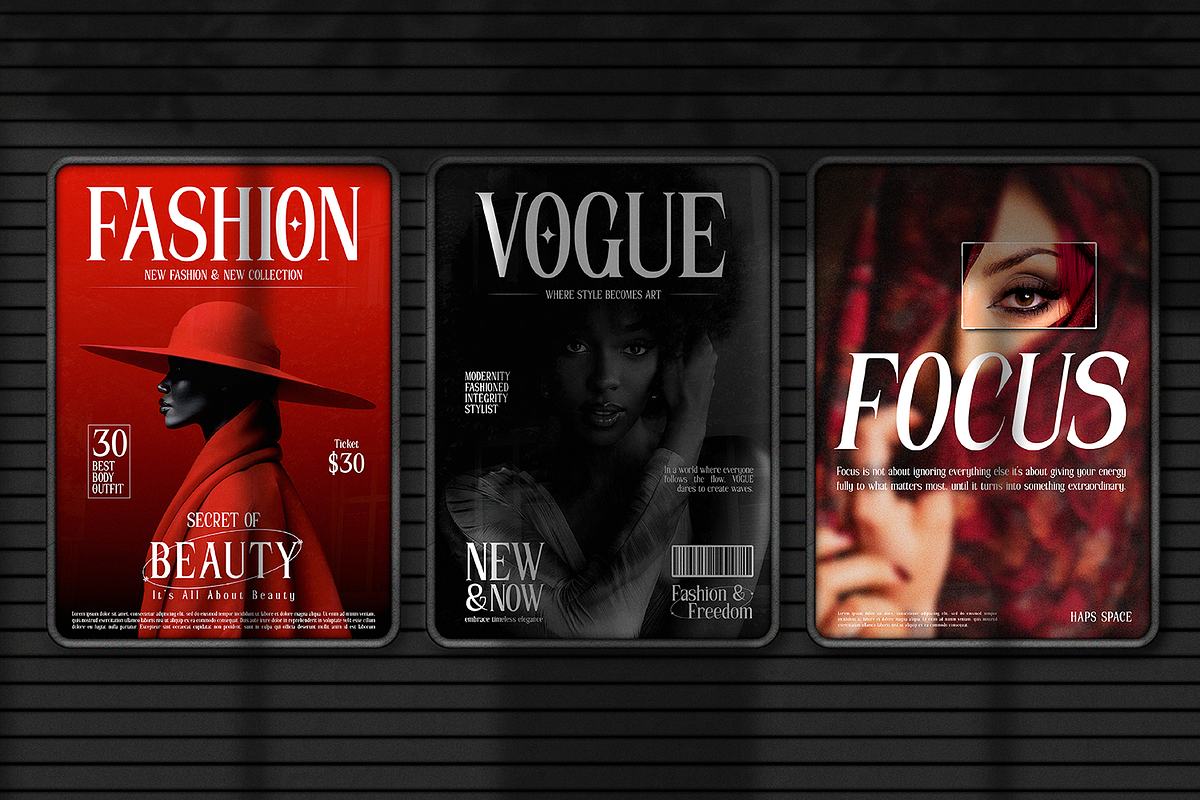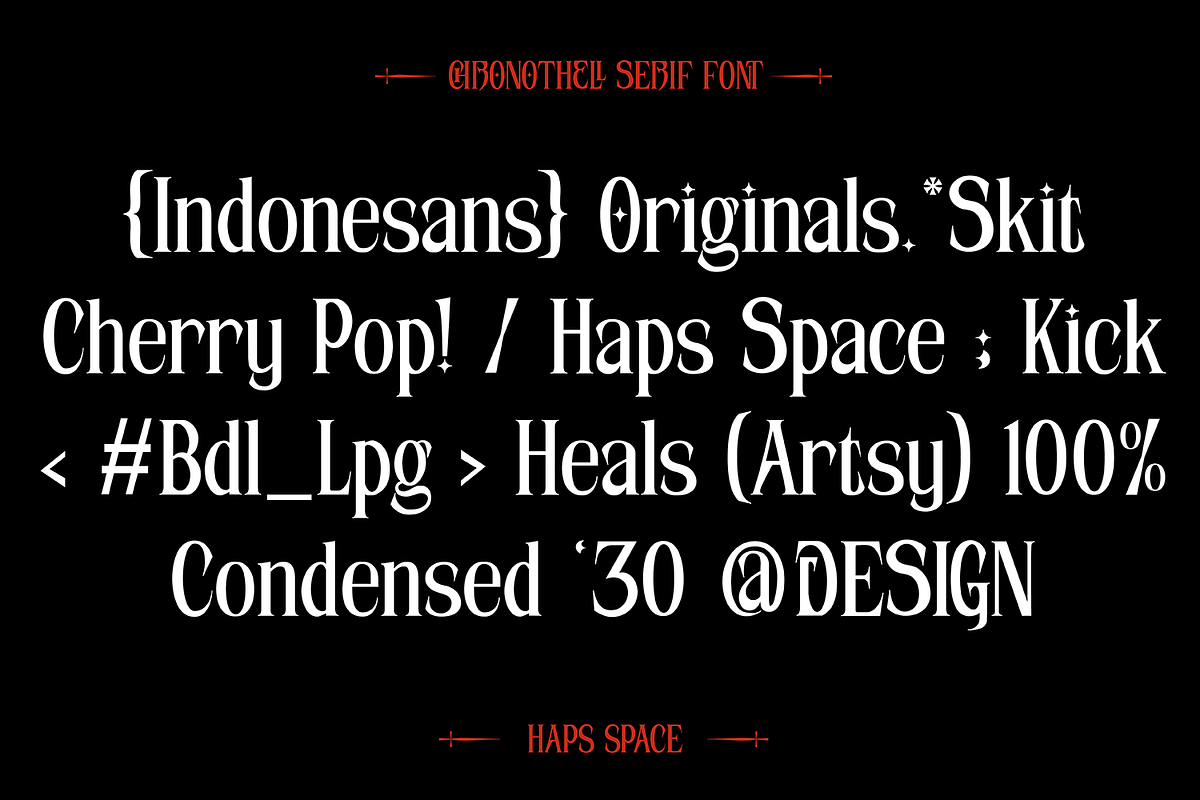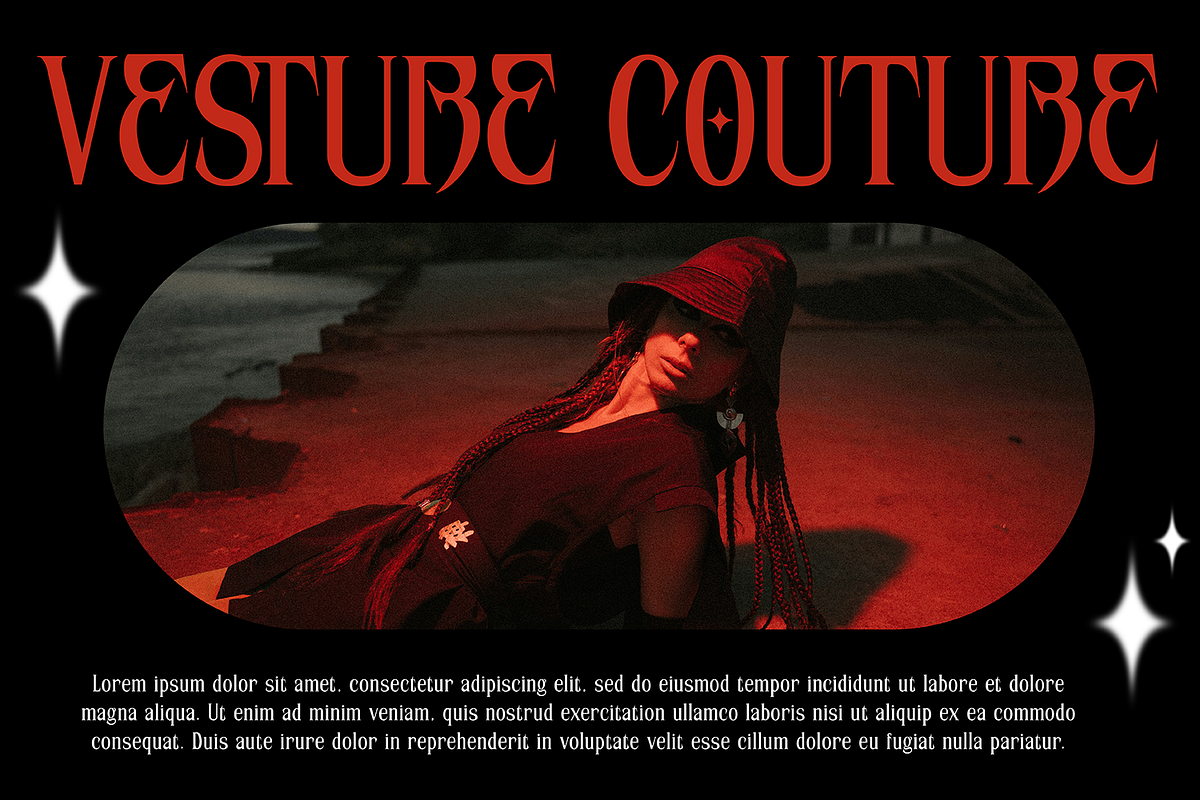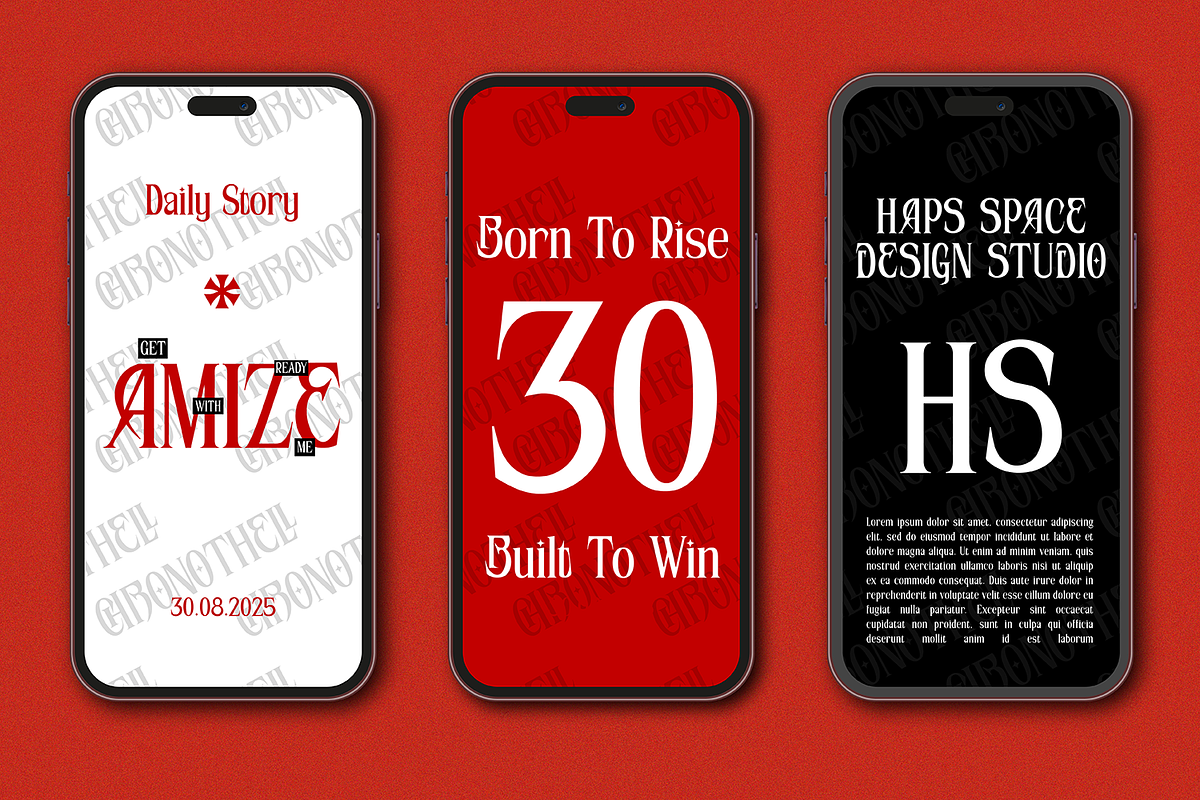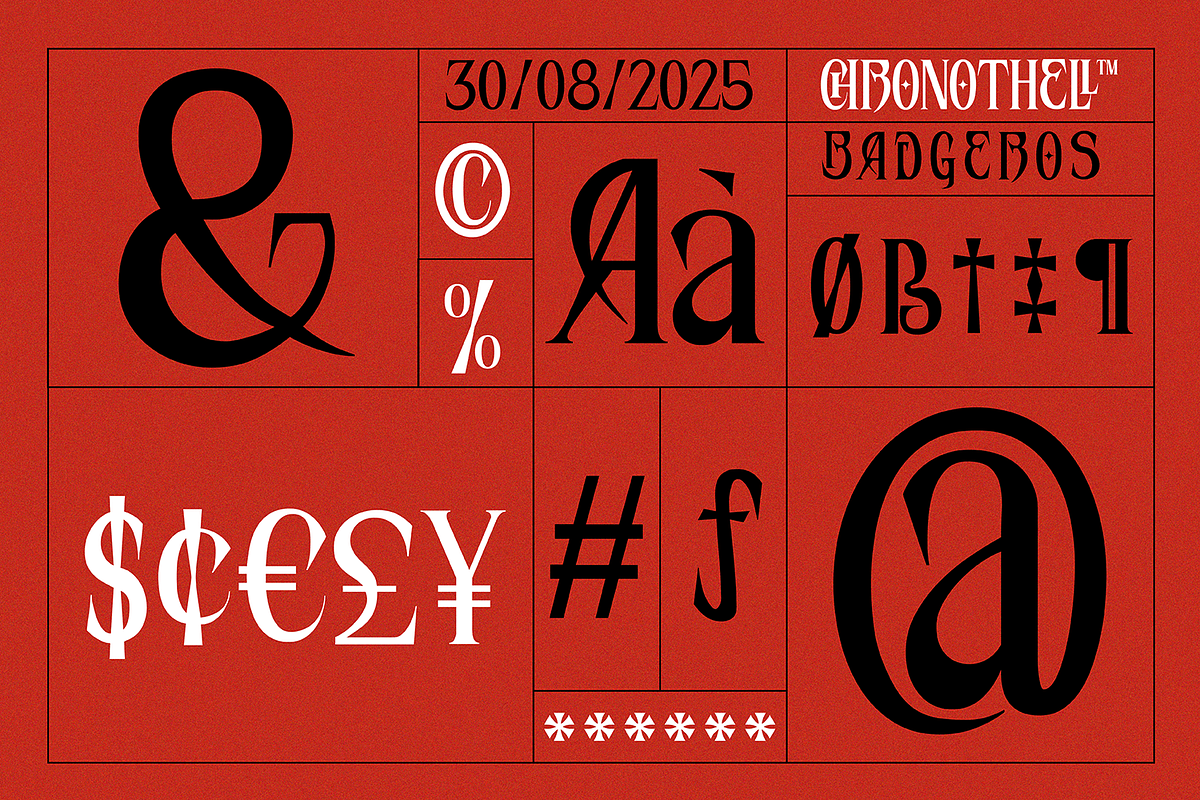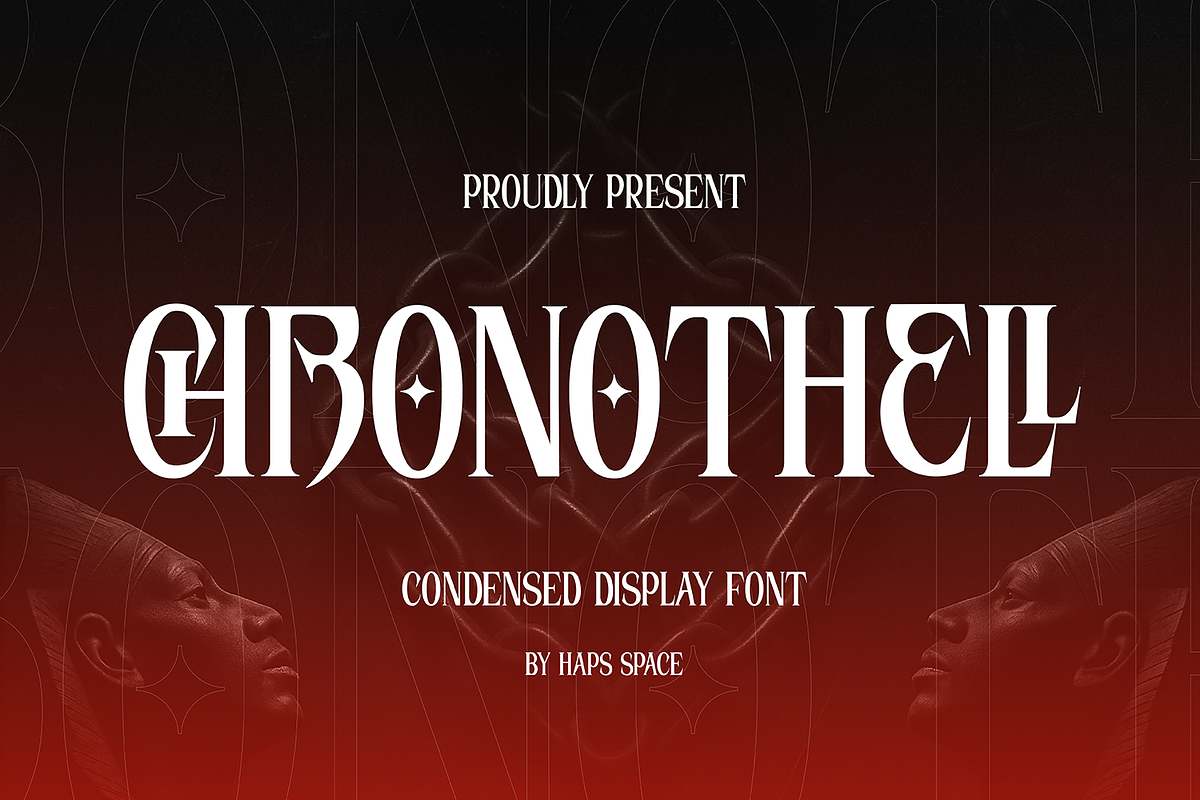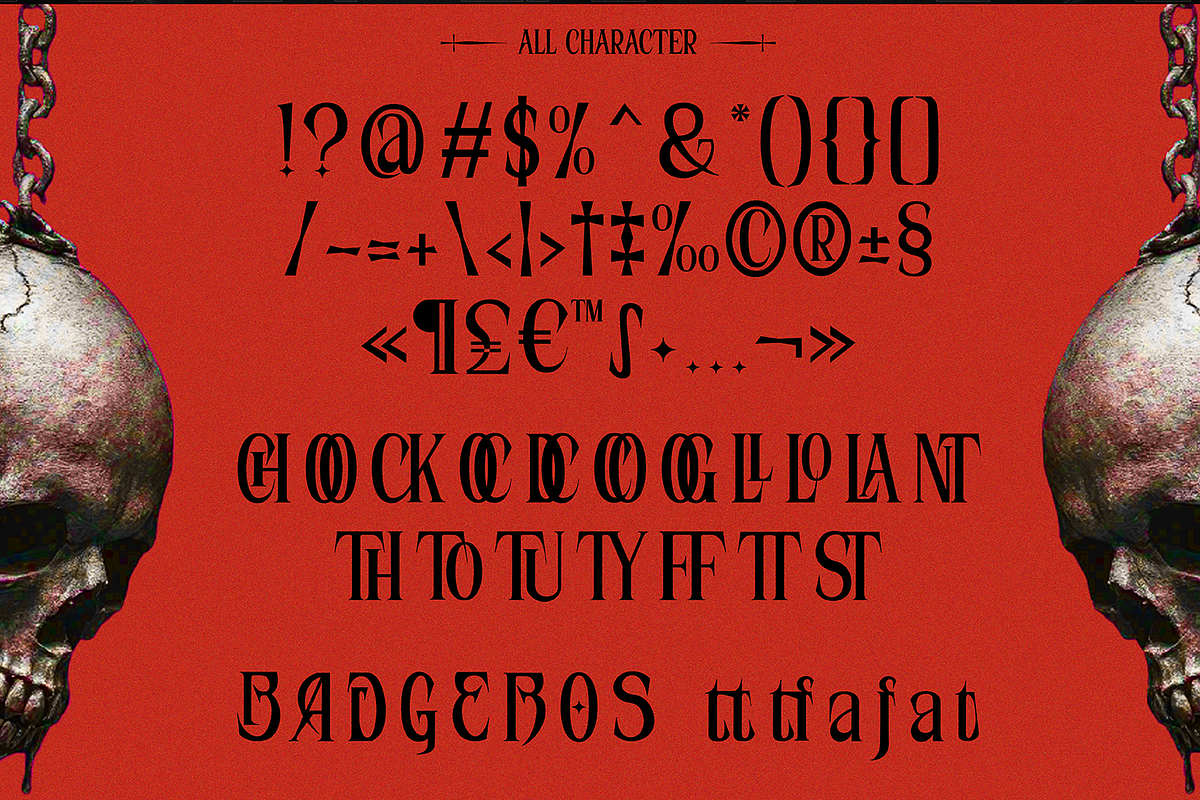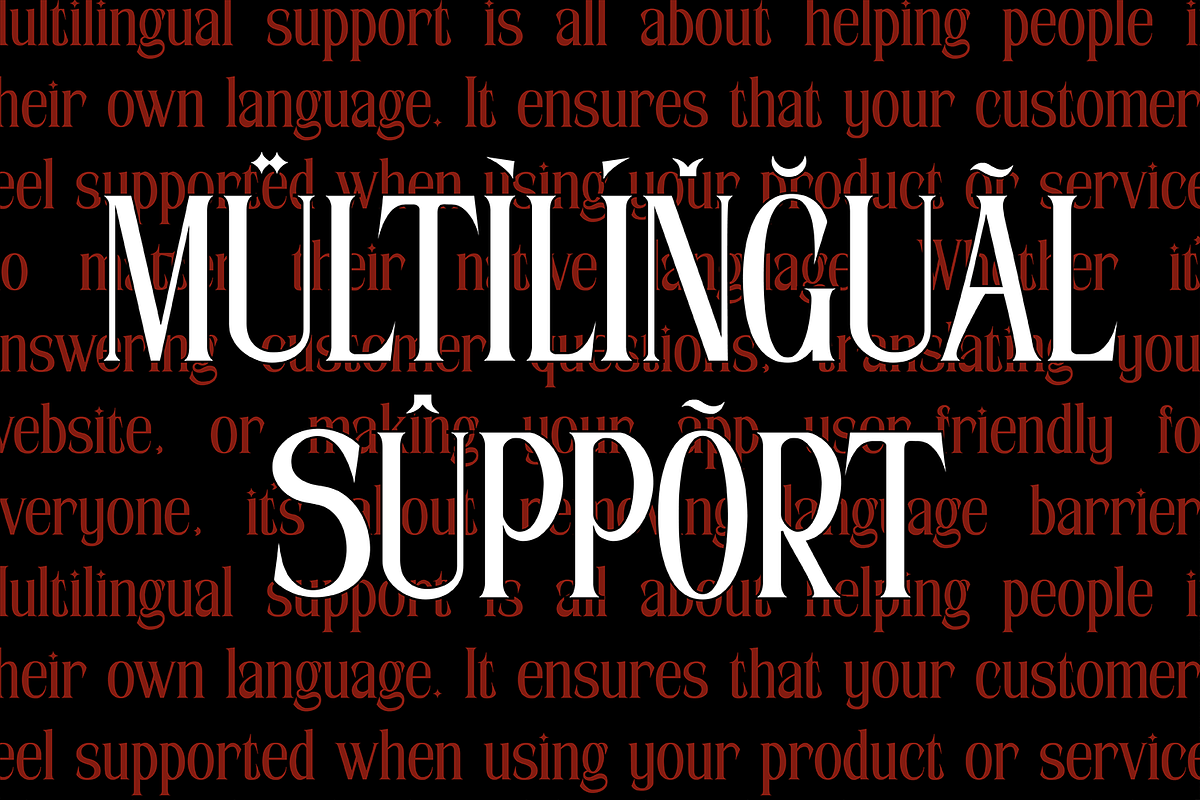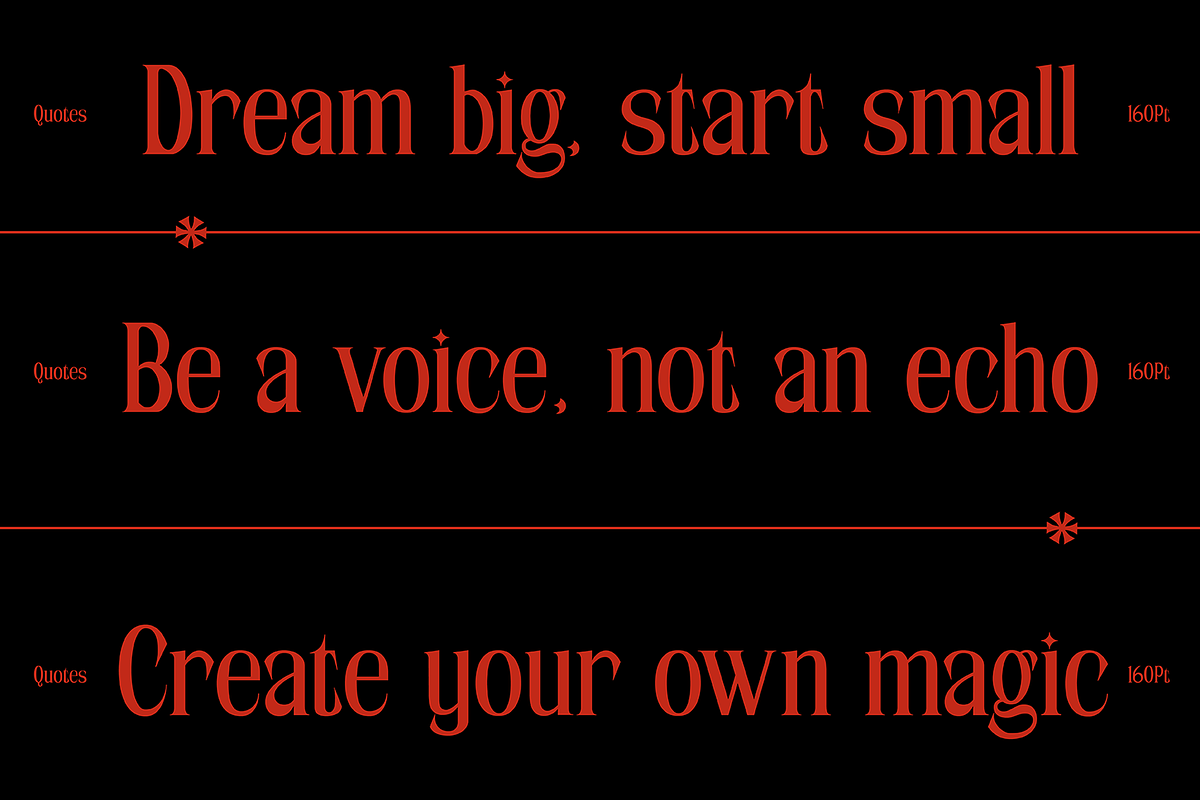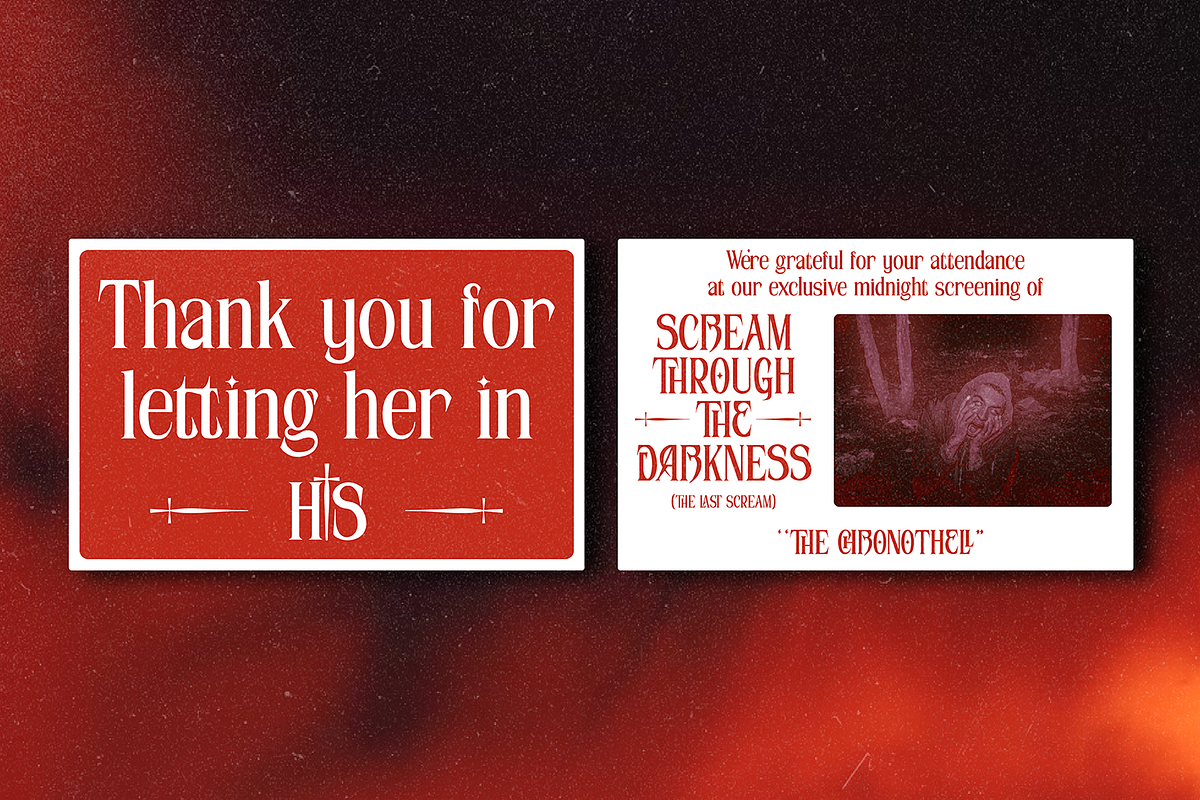
Chronothell Condensed Display
Introducing Chronothel – a condensed display font with a gothic-inspired style and a modern, elegant twist. Designed for impactful typography, Chronothel features tall letterforms, sharp serifs, and unique ornamental details that make it stand out in any project.
Whether you’re working on branding, posters, album covers, editorial design, fashion campaigns, packaging, or digital content, Chronothel delivers a bold and timeless look. Its condensed structure allows for strong presence in headlines while maintaining readability, making it a versatile choice for both print and digital media.
Perfect for designers who want to combine strength, sophistication, and mystique, Chronothel will bring an unforgettable character to your creative projects.